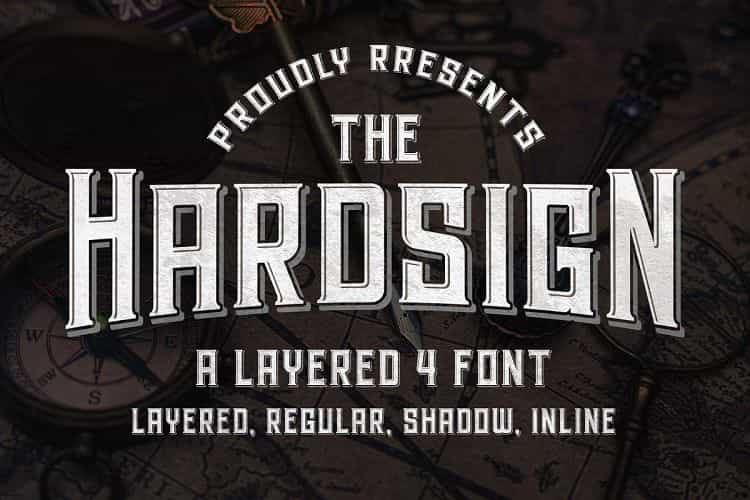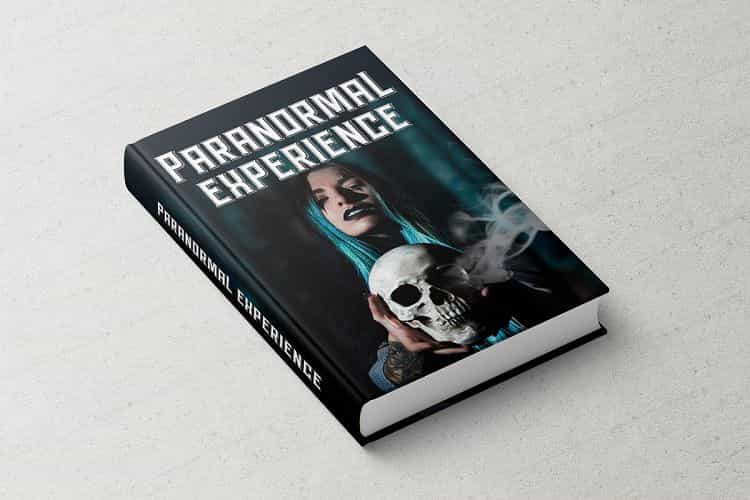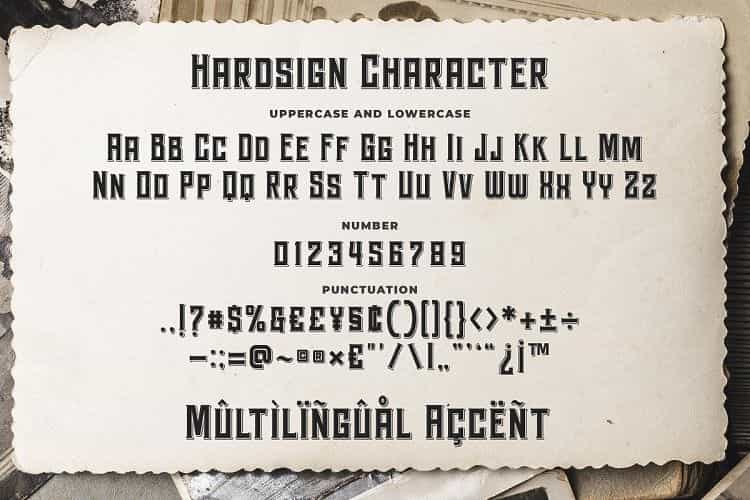
Hardsign font has some of the most striking set of alternates of fonts to make some extraordinary Vintage designs. There are four designs of Hardsign: There is inline, shadow, layered, and regular button style. This font is a traditional font that suits the vintage logo designs, posters and label headlines, packaging design and headlines.